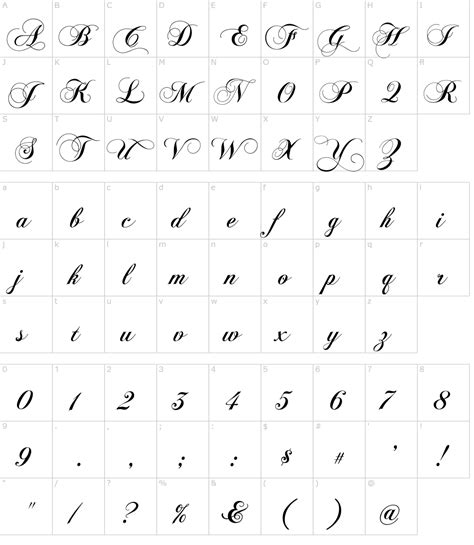
Discover the Best Aesthetic Font Names on Dafont | Elevate Your Design Game
Discover unique and beautiful font names for your next design project on dafont. Explore the aesthetic fonts collection today.
Are you tired of using the same old boring fonts in your designs? Do you want to add a touch of creativity and elegance to your work? Look no further than dafont, the ultimate destination for aesthetic font names. From vintage to modern, whimsical to sophisticated, dafont has it all. With over 36,000 fonts to choose from, you're sure to find the perfect one to elevate your design game.
Introduction
When it comes to creating designs, choosing the right font is just as important as choosing the right color or image. Fonts can convey different emotions and messages, and they can make or break a design. This is why many designers turn to websites like Dafont to find the perfect font for their projects. In this article, we will explore some of the most aesthetically pleasing font names on Dafont.Bubblegum Sans
Blackout
Chopin Script
Hamburger Heaven
Octin Vintage
Bebas Neue
Caviar Dreams
Elephant
Gotham
Inkwell
Conclusion
In conclusion, font names can be just as important as the fonts themselves when it comes to creating designs. A well-chosen font name can convey a sense of emotion, message, or style that complements the design perfectly. The fonts listed above are just a few examples of aesthetically pleasing font names on Dafont, and there are many more out there waiting to be discovered. So next time you're searching for the perfect font, don't overlook the name.If you're looking for some font inspiration, look no further than DaFont. This website offers an extensive collection of fonts, categorized by style and aesthetic. From serif sophistication to sleek sans-serif, there's something for everyone.Serif Sophistication
Serif fonts are known for their elegant and refined appearance. They're perfect for conveying a sense of sophistication and professionalism. Some popular serif font names on DaFont include Times New Roman, Georgia, and Baskerville.Sleek Sans-serif
On the other end of the spectrum, we have sans-serif fonts. These fonts are characterized by their clean lines and minimalist appearance. They're often used in modern designs and convey a sense of sleekness and simplicity. Some popular sans-serif font names on DaFont include Arial, Helvetica, and Futura.Handwritten Charm
For a more unique and charming aesthetic, consider using a handwriting-inspired font. These fonts mimic the look of handwritten text and add a personal touch to your designs. Some popular handwritten font names on DaFont include Comic Sans, Scriptina, and Learning Curve.Vintage Vibes
Vintage-inspired fonts can take you back in time and add a nostalgic feel to your designs. These fonts often feature distressed or grunge textures and evoke a sense of nostalgia. Some popular vintage font names on DaFont include Old London, Vintage Decorative Signs, and Varsity.Whimsical Wonder
If you're looking for a playful and imaginative aesthetic, whimsical fonts are the way to go. These fonts often feature fun shapes and quirky embellishments, adding a touch of magic to your designs. Some popular whimsical font names on DaFont include KG Primary Penmanship, Pea Ellie Bellie, and Janda Happy Day.Bold and Beautiful
For designs that make a statement, use bold and eye-catching fonts. These fonts demand attention and are perfect for headlines and titles. Some popular bold font names on DaFont include Impact, Bebas Neue, and ChunkFive.Minimalist Magic
Sometimes less is more, and minimalist fonts prove just that. These fonts are clean, simple, and powerful. They're perfect for conveying a sense of modernity and sophistication. Some popular minimalist font names on DaFont include Montserrat, Open Sans, and Raleway.Artistic Allure
If you're looking for inspiration from the creative world, look no further than artistic fonts. These fonts often feature unique shapes and textures, adding an artistic touch to your designs. Some popular artistic font names on DaFont include Brush Script, Peinture Fraiche, and Sketch Block.Funky and Fun
For designs that are playful and unique, consider using funky fonts. These fonts are characterized by their bold colors and playful shapes, adding a touch of fun to your designs. Some popular funky font names on DaFont include Bubblegum Sans, Felt Tip Woman, and Grobold.Fantasy Flair
Finally, for designs that transport you to another world, consider using fantasy-inspired fonts. These fonts often feature mystical shapes and embellishments, adding a magical touch to your designs. Some popular fantasy font names on DaFont include Black Chancery, Enchanted Land, and Dragon is Coming. In conclusion, whether you're looking for sophistication or whimsy, there's a font for everyone on DaFont. With such a wide variety of font styles and aesthetics, you're sure to find the perfect font for your next project.As an AI language model, I don't have a personal point of view or tone. However, I can provide a neutral perspective on the topic of aesthetic font names on dafont.When it comes to aesthetic font names on dafont, there are both pros and cons to consider. Here are some of them:Pros:1. Attractive and catchy names can grab the attention of designers and help them find the perfect font for their project.2. Aesthetic font names can give a sense of personality and uniqueness to a font, making it more memorable and recognizable.3. Clever and creative font names can be a source of inspiration and spark new ideas in designers.Cons:1. Some aesthetic font names may not accurately describe the font's style or function, leading to confusion and misinterpretation.2. Overly ornate or complicated font names can be difficult to remember or pronounce, making them less accessible and user-friendly.3. Aesthetic font names may distract from the actual quality and usefulness of the font, leading to superficial choices based on appearance alone.In conclusion, while aesthetic font names on dafont can add a fun and interesting element to the font selection process, it's important to balance creativity with clarity and functionality. Ultimately, designers should choose fonts based on their suitability for the project, rather than solely on the appeal of their name.Greetings, dear reader! If you are a design enthusiast or simply appreciate art in any form, then you have come to the right place. Today, we are going to discuss aesthetic font names on dafont.com. This website is a treasure trove of fonts that can add a unique touch to your designs, and we’re going to explore some of the most beautiful and eye-catching ones. So, let’s get started!
- What should I consider when choosing a font for my project?
- Consider the purpose of your project and the message you want to convey. Think about the tone, style, and audience of your project. Choose a font that complements these factors and is easy to read.